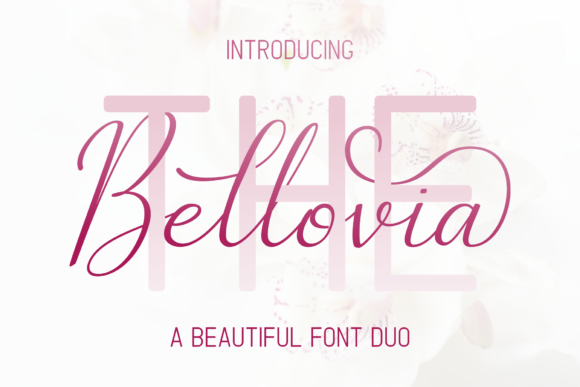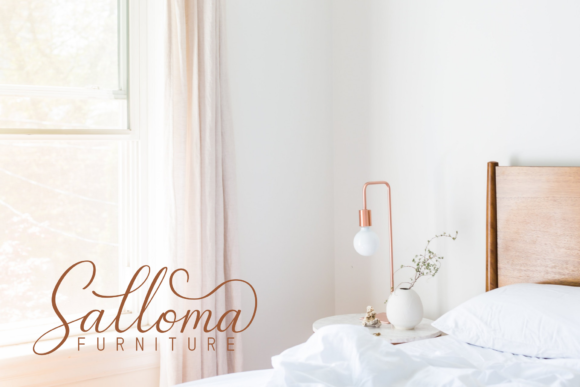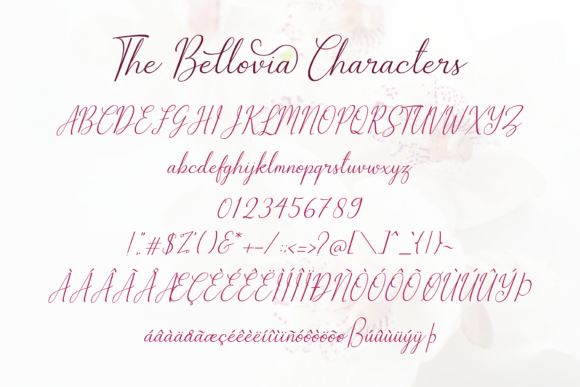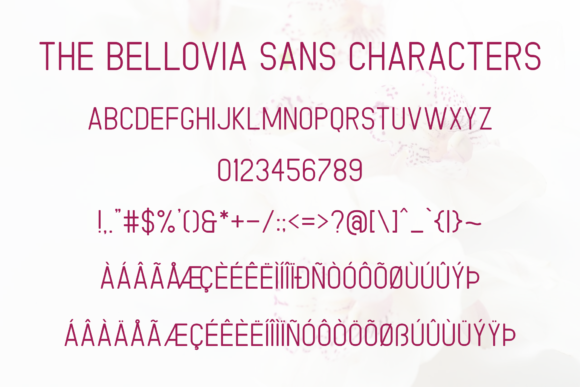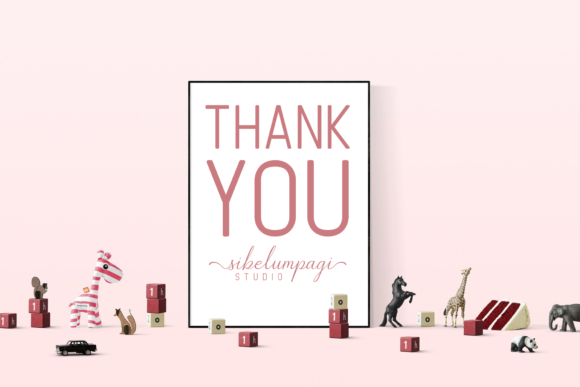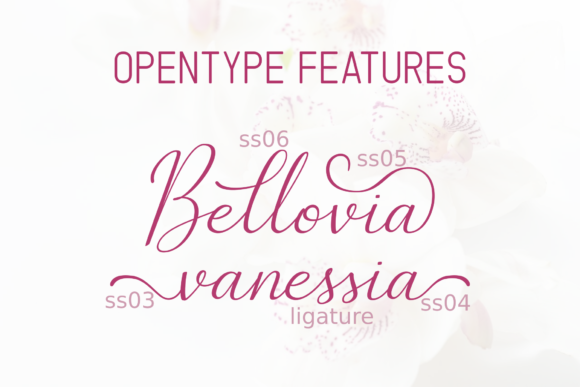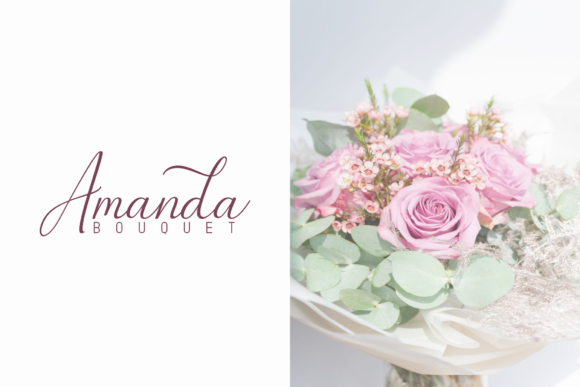
The Bellovia Duo Font
About The Bellovia Duo Font
The Bellovia is a beautiful font duo with a pair of elegant typefaces which consist of a script and sans serif font. The beautiful script and the rounded sans serif perfectly match and bring a luxury and classy feeling to your design.
This classy duo is easy to use and has a great readability. It can be used for watermarks, signature logos, business cards, quotes, invitations, and much more!